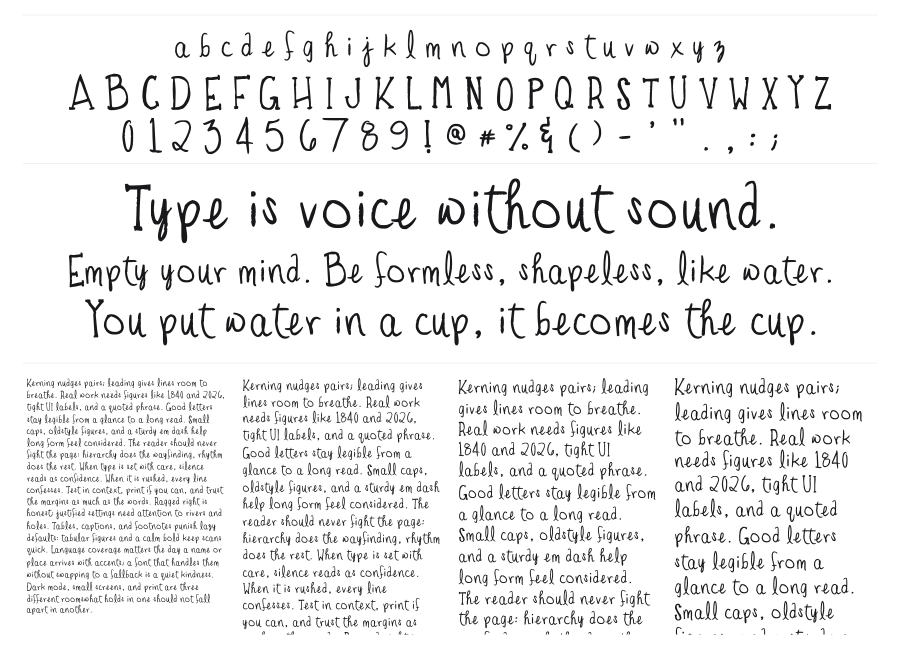
The Toadfrog
The Toadfrog is a thin, casual handwritten face from FontPanda with the kind of wobbly, uneven letterforms that feel like a kid writing a note to a friend. There's a genuine looseness to it, quirky and a little goofy without trying too hard. Works naturally for informal branding, greeting cards, children's projects, or anywhere you want type that feels approachable and human.